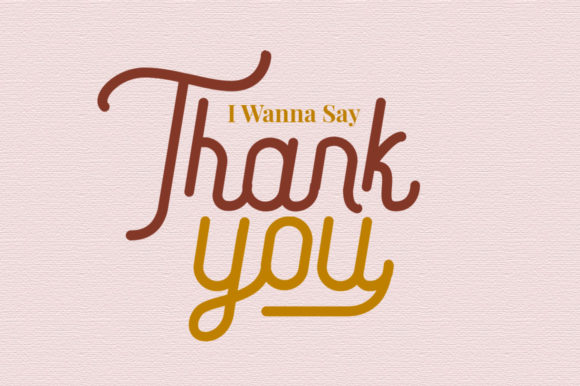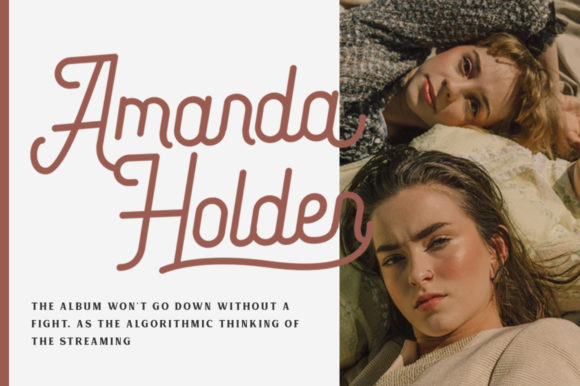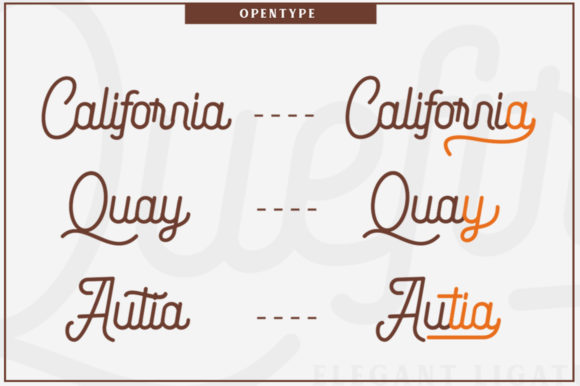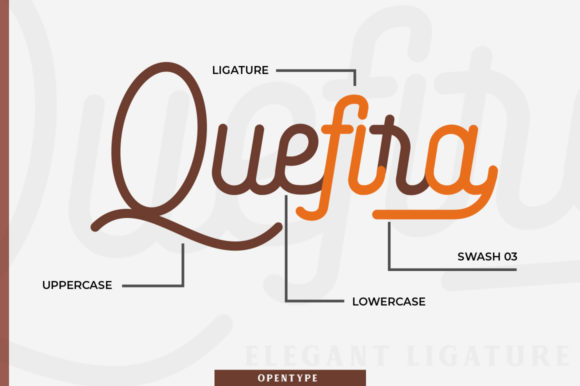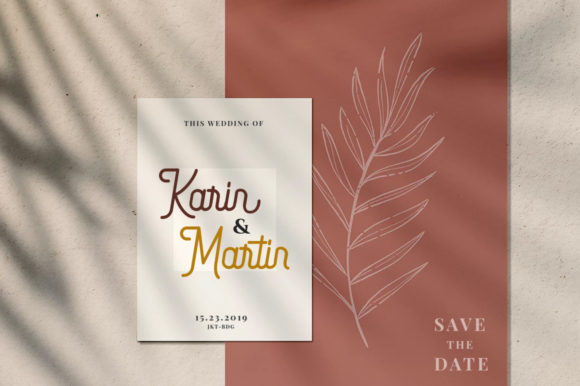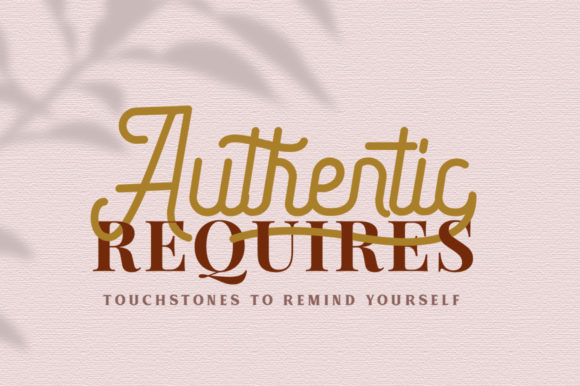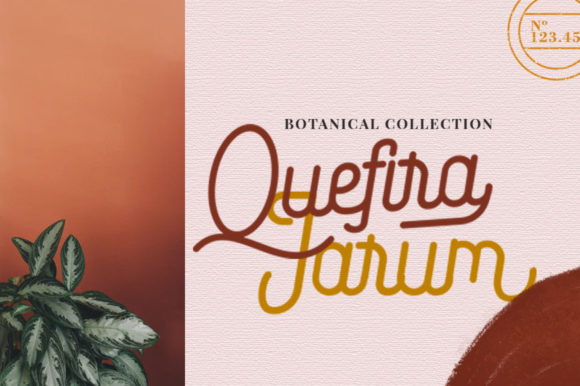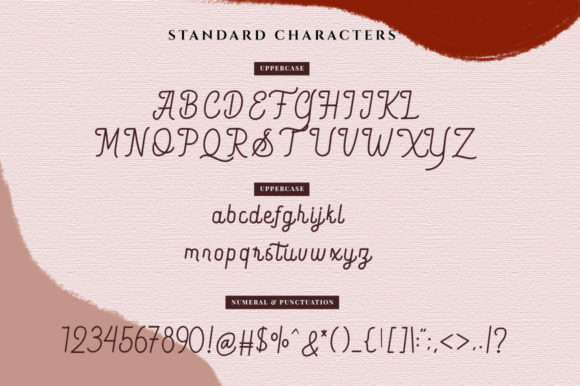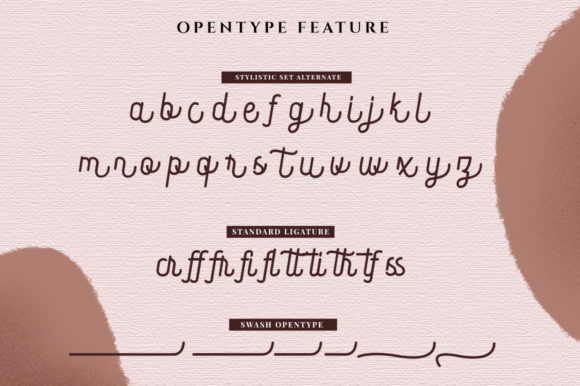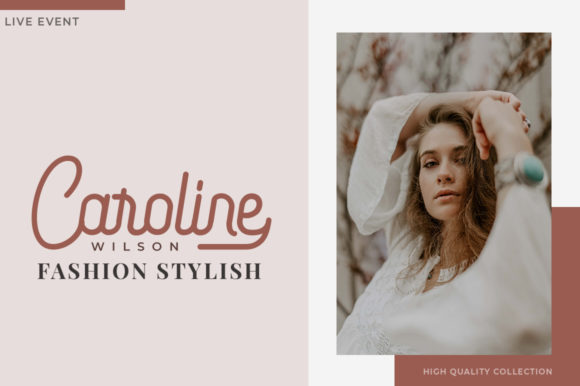
Quefira Script Font
About Quefira Script Font
Quefira Script is a clean and minimalist script with beautiful ligature and alternates. It also works wonderfully for many creative designs!